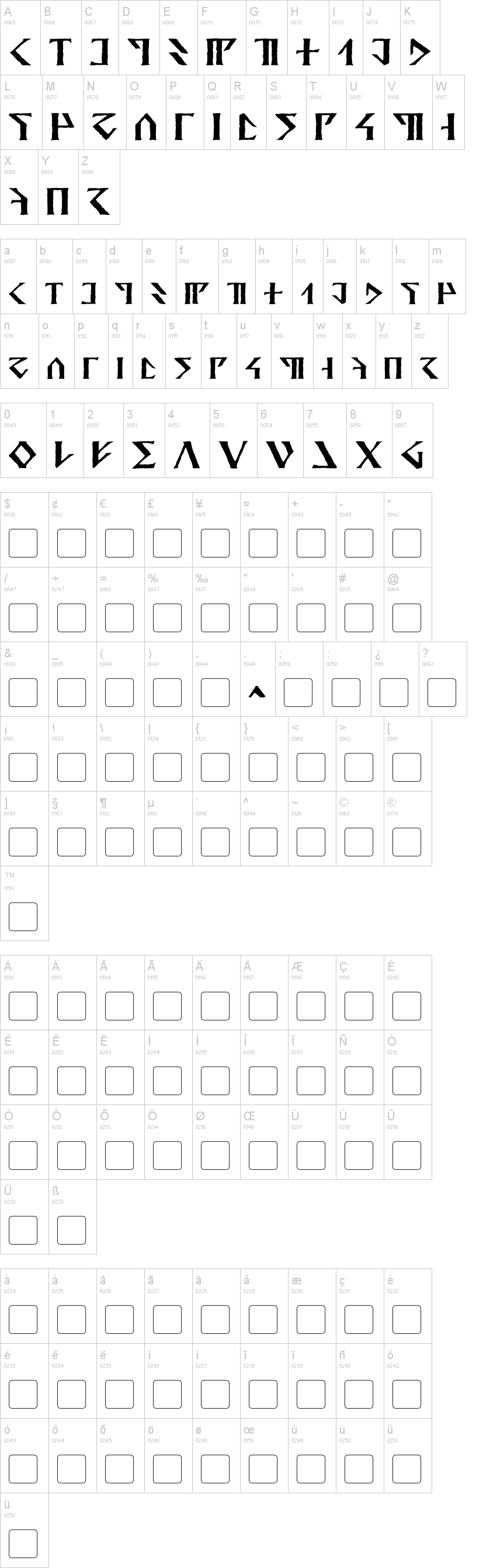
Davek Italic.otfDavek Bold.otfDavek Bold Italic.otfNote of the authorDavek is based on the dwarven and under-mountain runic scripts found in Wizards of the Coasts Dungeons and Dragons fourth edition role-playing game. Includes all canon glyphs. Includes regular, bold, italic, and bold-italic weights.